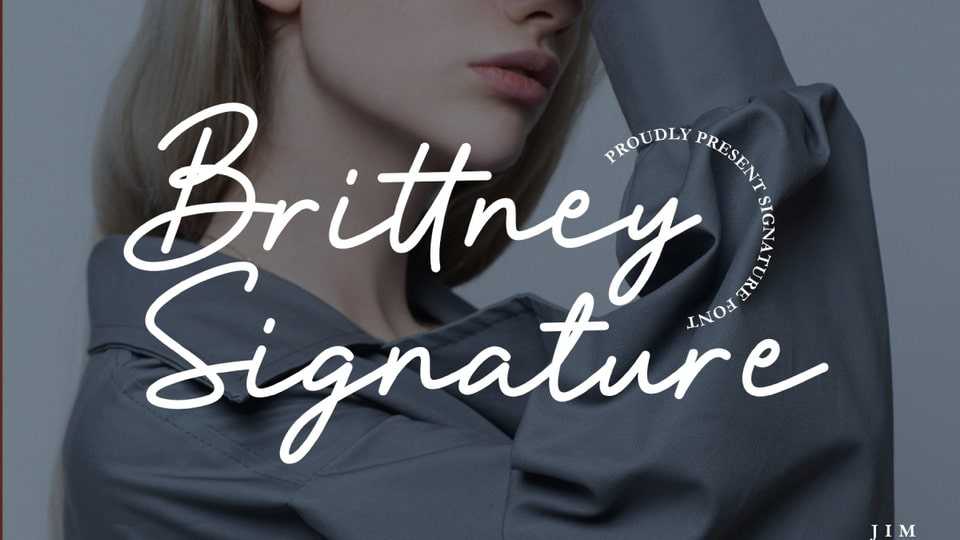
Download Brittney Signature font, a stylish and exquisite script font that is the perfect choice for designs that need a touch of elegance and luxury.